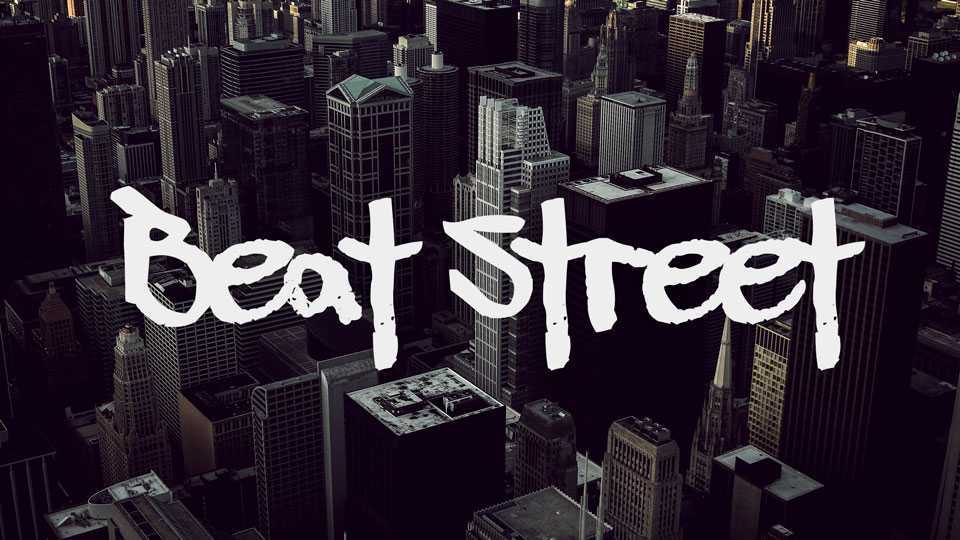
Download Beatstreet font, a graffiti style hand lettered typeface. Beatstreet font is great for grunge designs, posters, headlines, creative logos and much more.
Designer: Charakter Typen